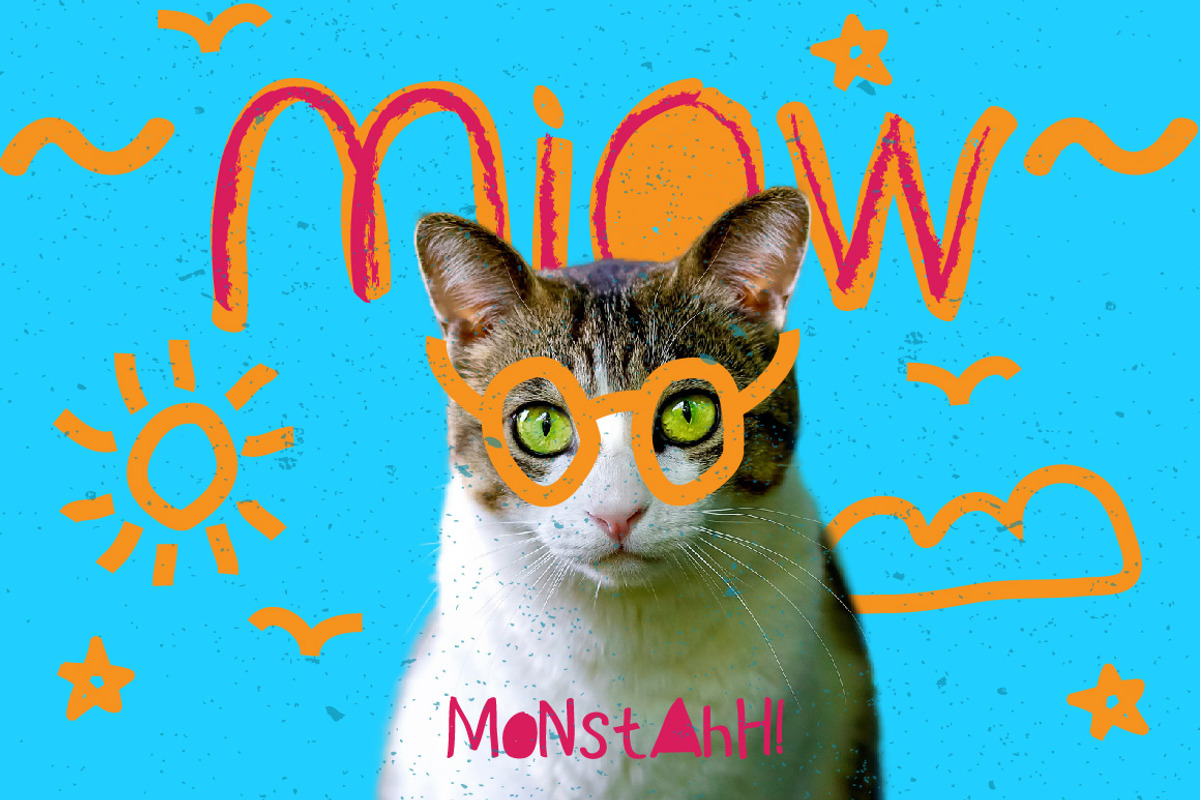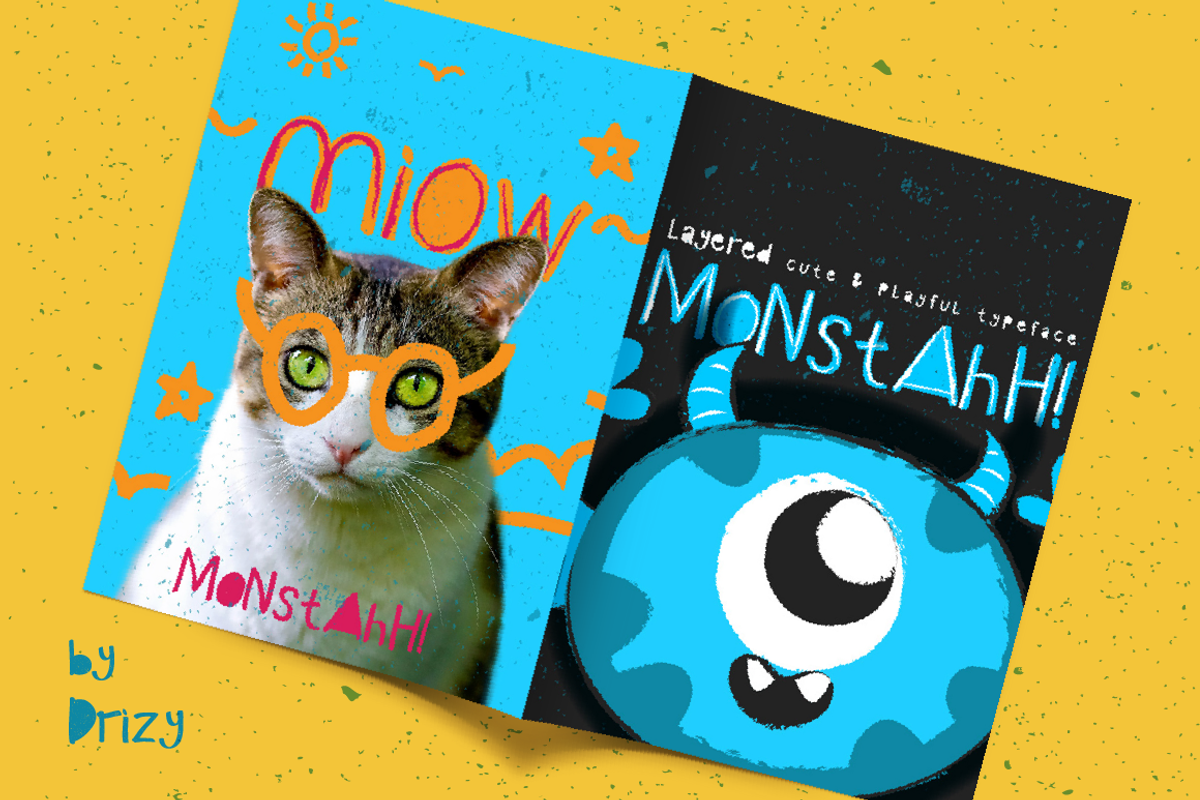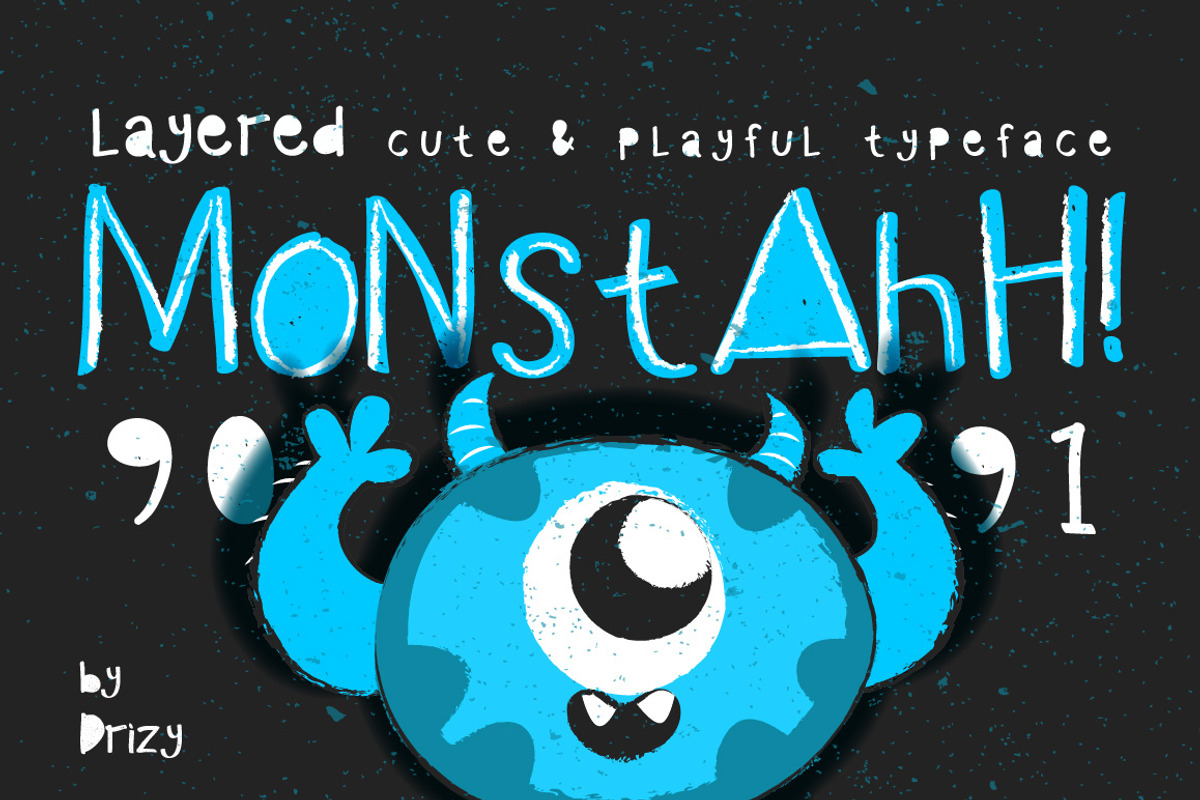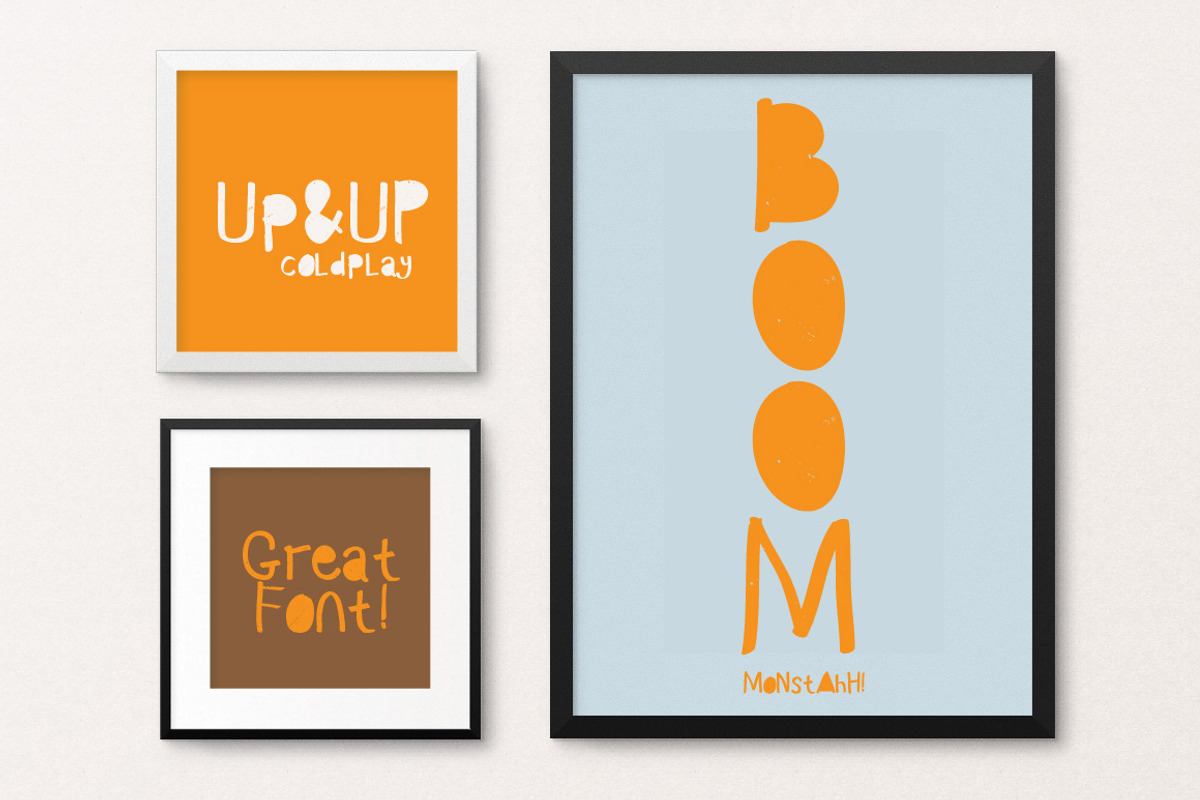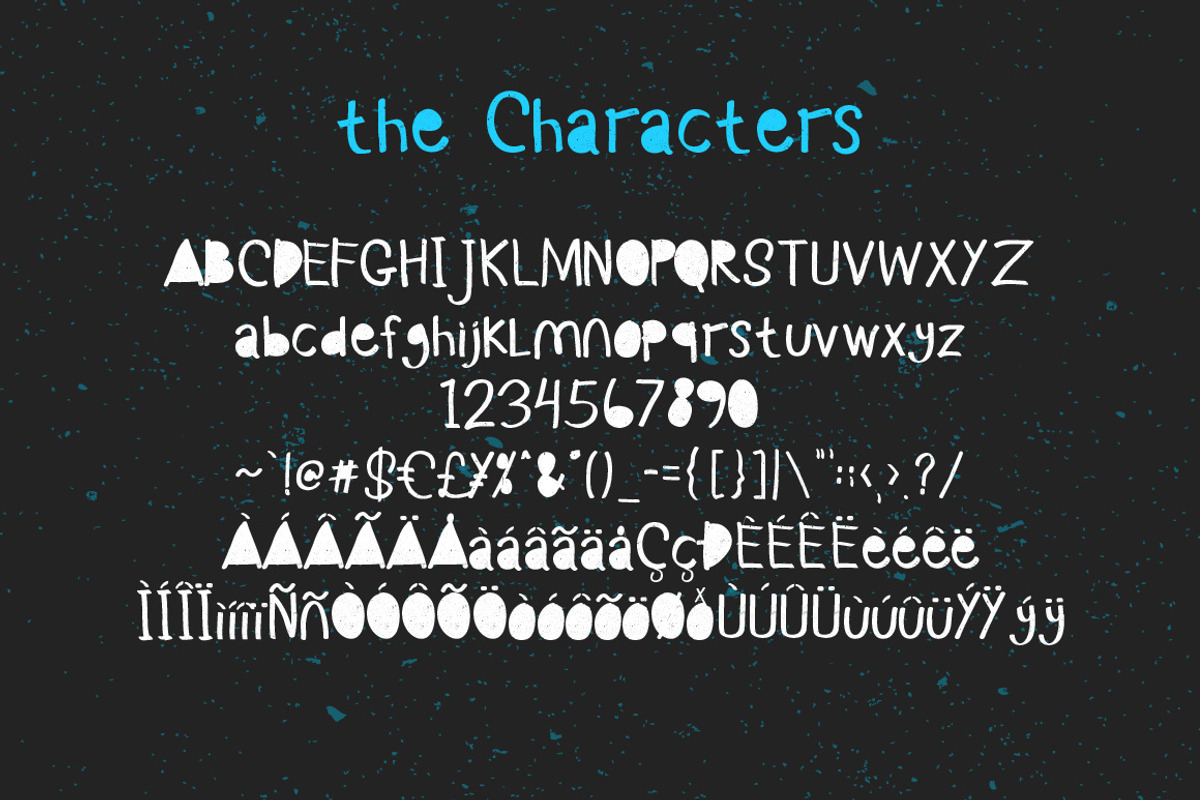
Monstahh Layered Typeface
Monstahh Layered Typeface by Drizy is a font selected for branding, posters, packaging, typography.
- Monstahh typeface also come included with multilingual support.
Why Monstahh Layered Typeface is worth a look
Monstahh Layered Typeface by Drizy fits naturally into Branding, posters, packaging, typography.